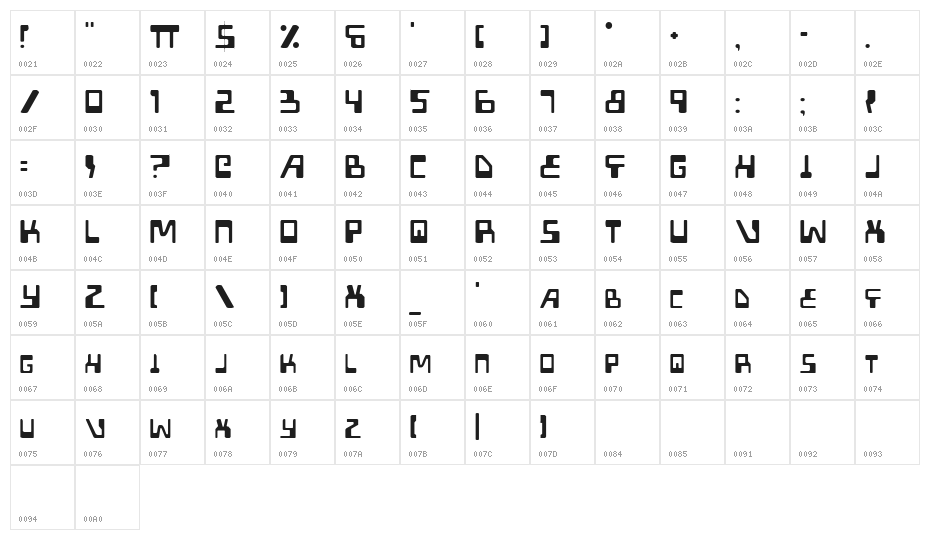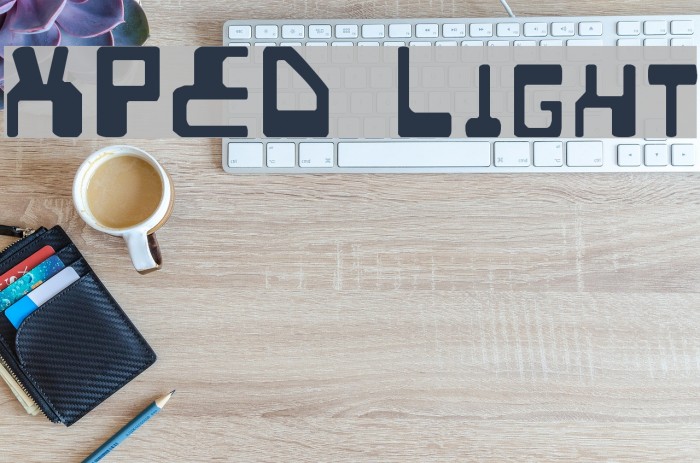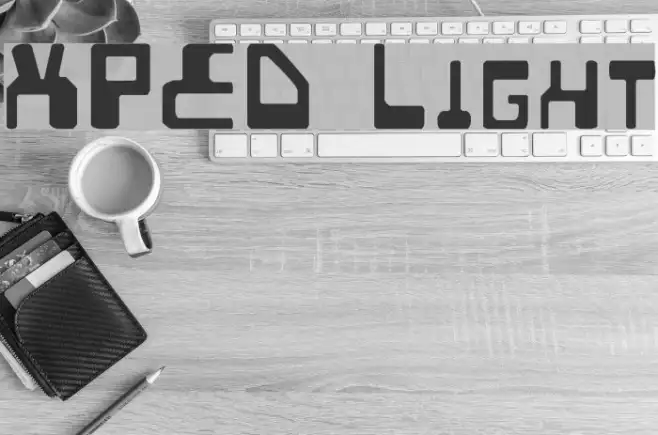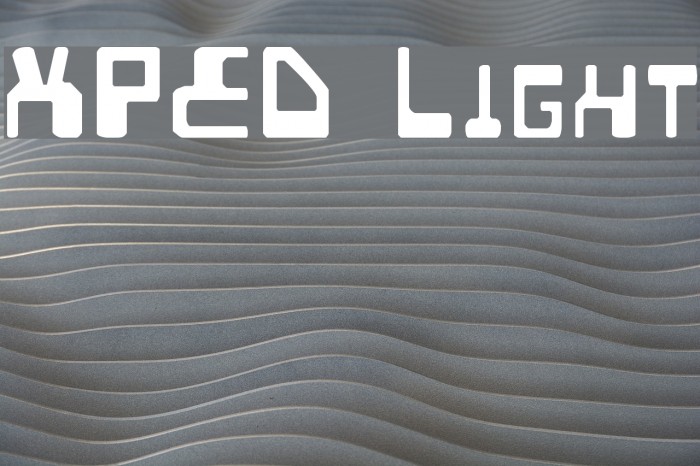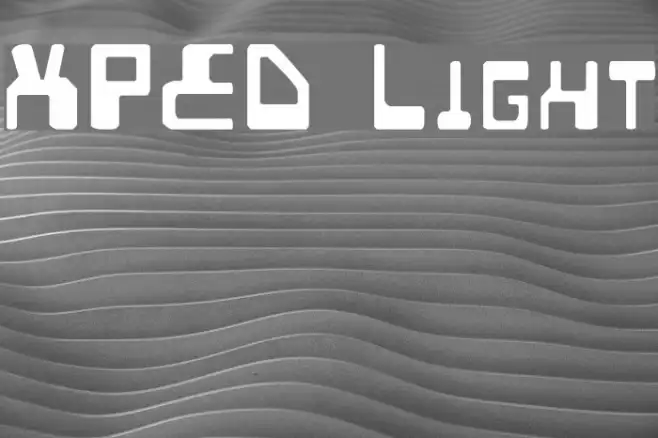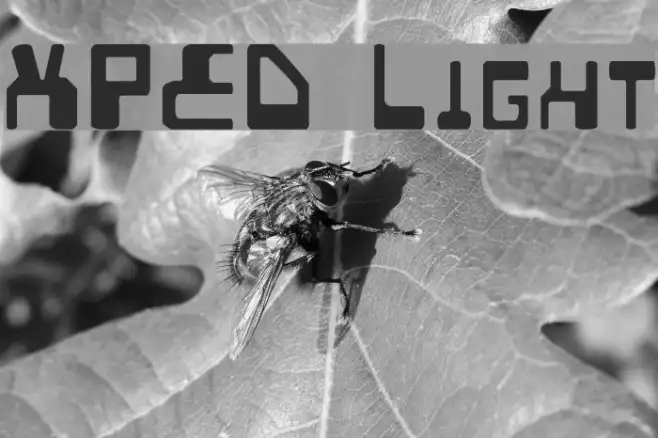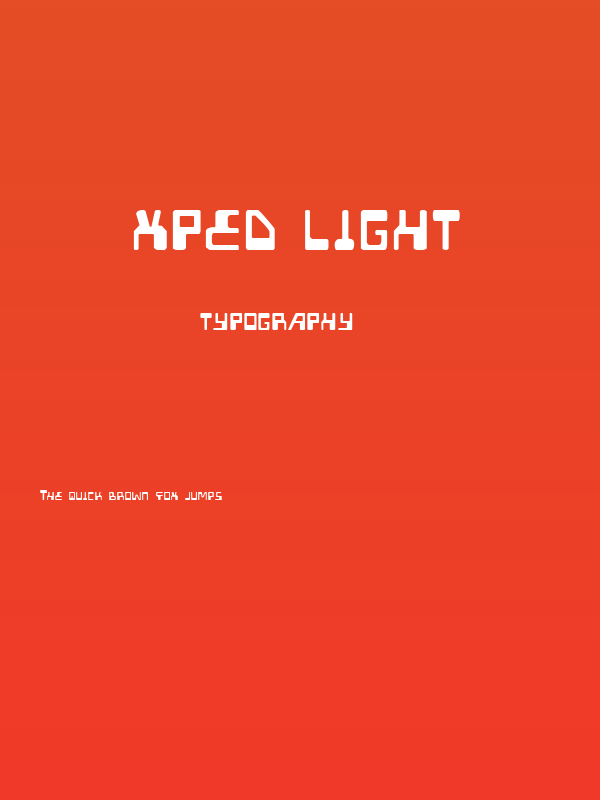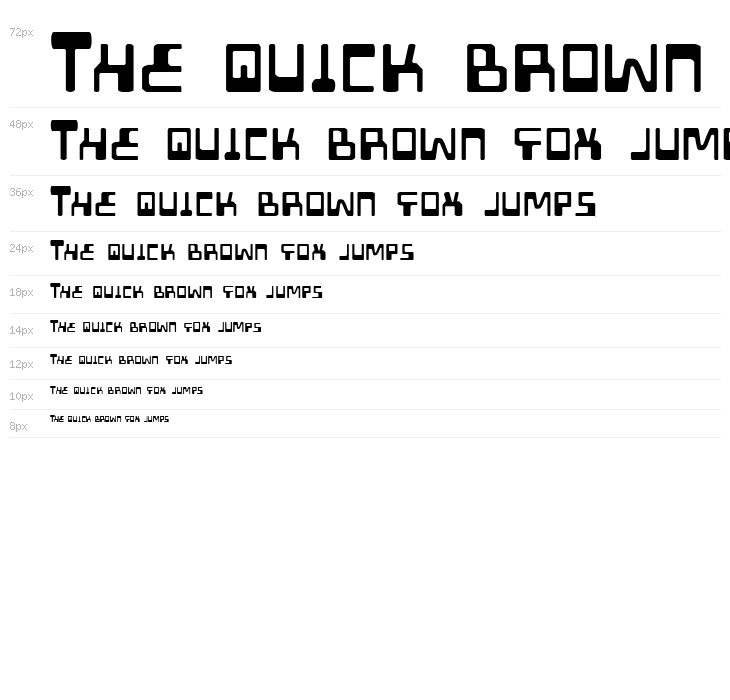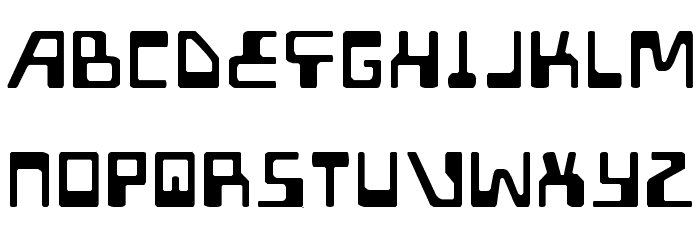
XPED Light Font
XPED Light Description
This font features a futuristic and geometric design with a distinct, bold appearance. The characters are constructed with sharp angles and straight lines, giving it a modern and tech-inspired look. The uppercase and lowercase letters maintain a consistent style, with some characters incorporating unique cuts and shapes that add to its distinctive appearance. The numerals are equally bold, with a uniform width that complements the overall design. Special characters are included, maintaining the same geometric style. This font is ideal for projects that require a modern and edgy aesthetic.
| Proposed Projects | Ideal for tech branding, sci-fi posters, video game titles, and modern logos. |